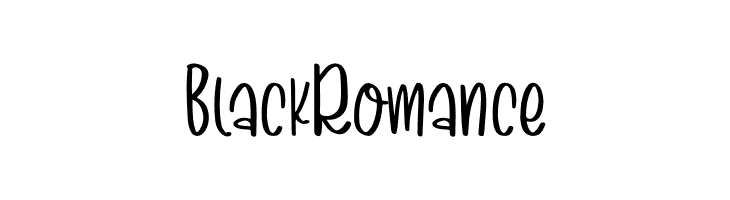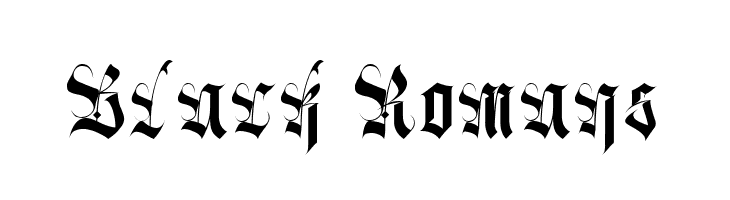
A playful, casual handwritten font with smooth curves and consistent height.
A bold, ornate blackletter font with a medieval aesthetic.
An ornate and decorative font with bold, intricate details.
A bold, distressed font with a vintage, grunge aesthetic.
A bold, distressed serif font with a grunge aesthetic.
A bold, decorative script font with elegant, flowing strokes.
An ornate, vine-like decorative font with intricate, swirling designs.
A dynamic, fluid handwritten font with smooth, flowing curves.
A bold, decorative font with a three-dimensional outline effect.